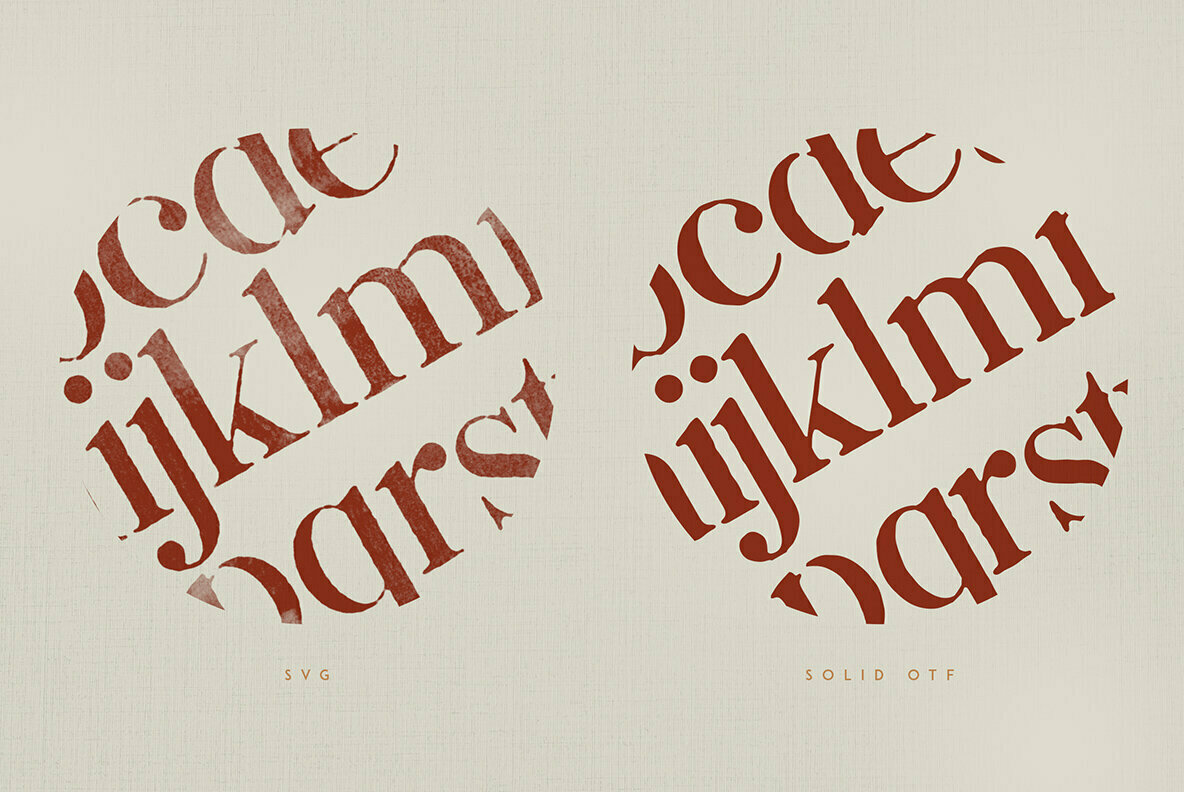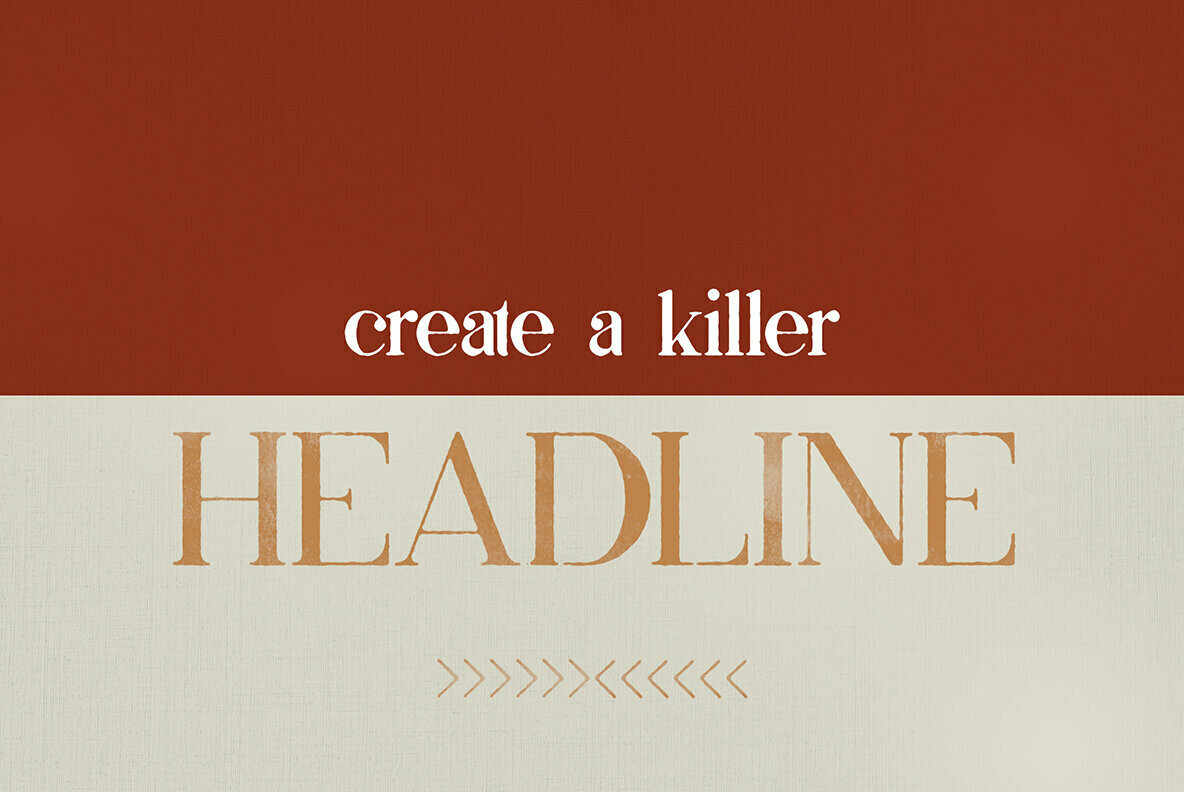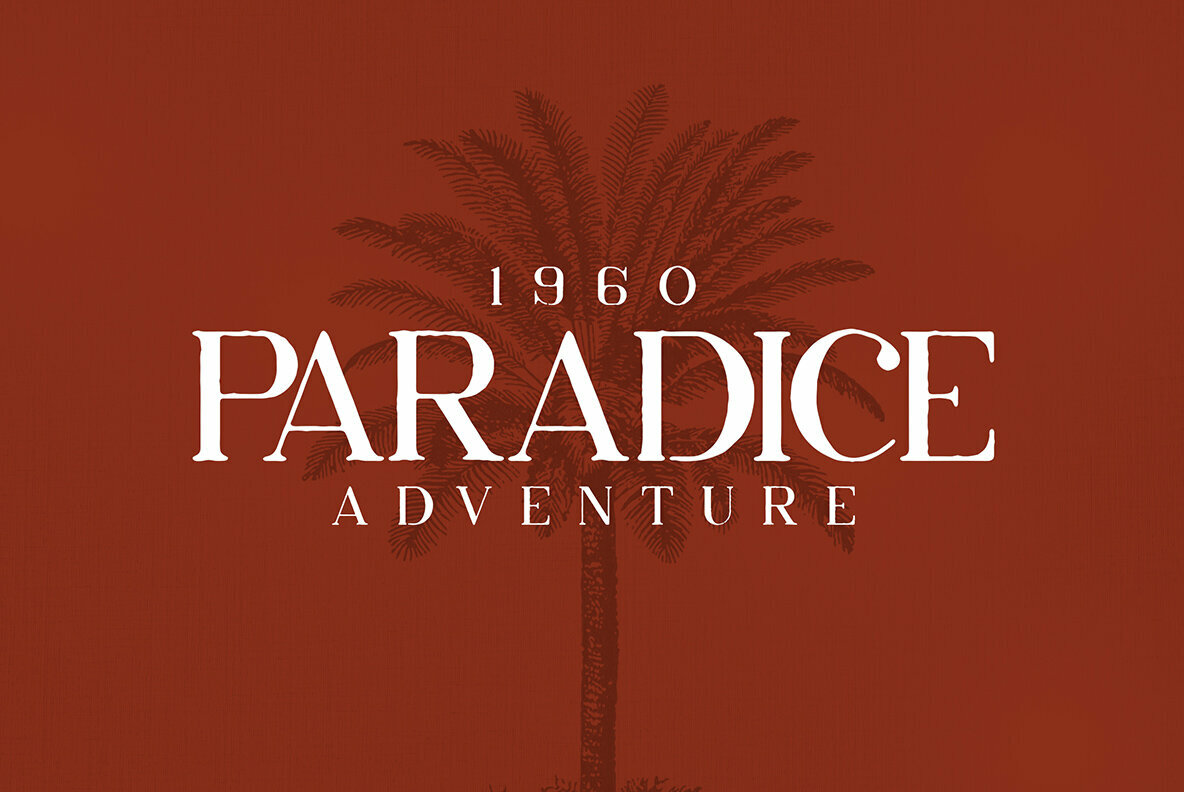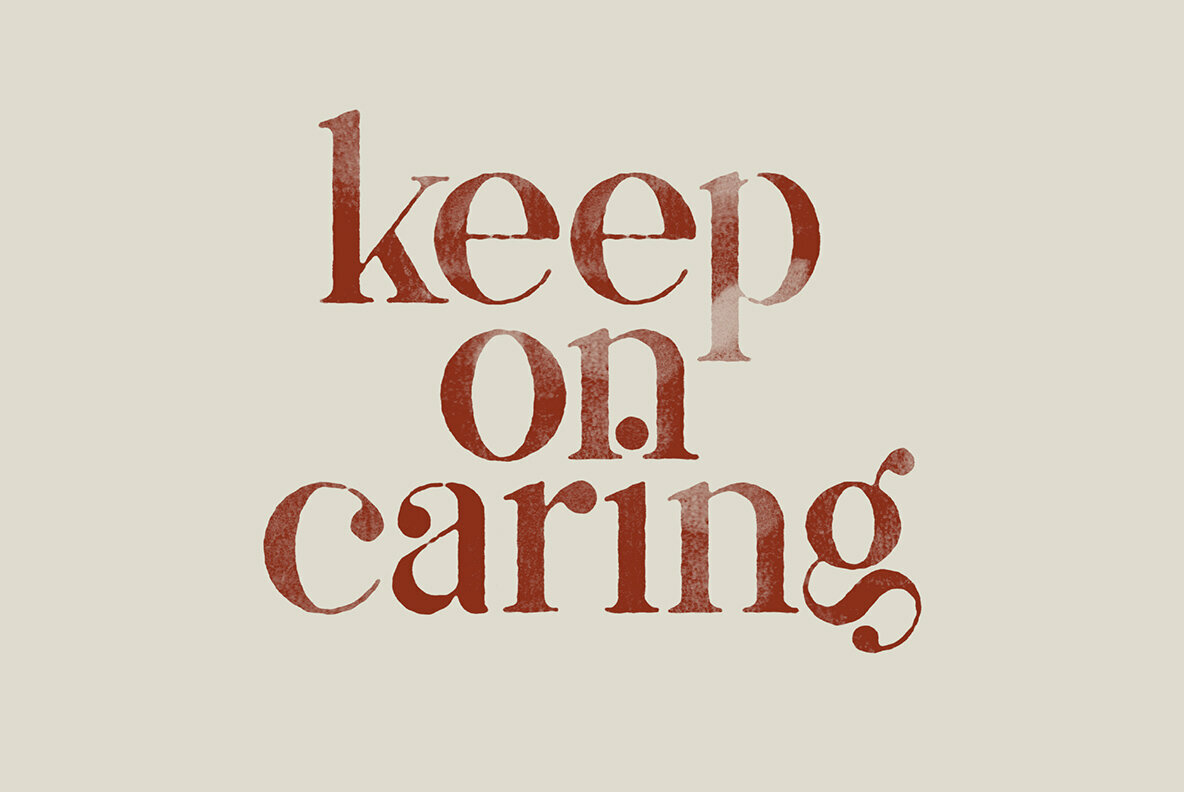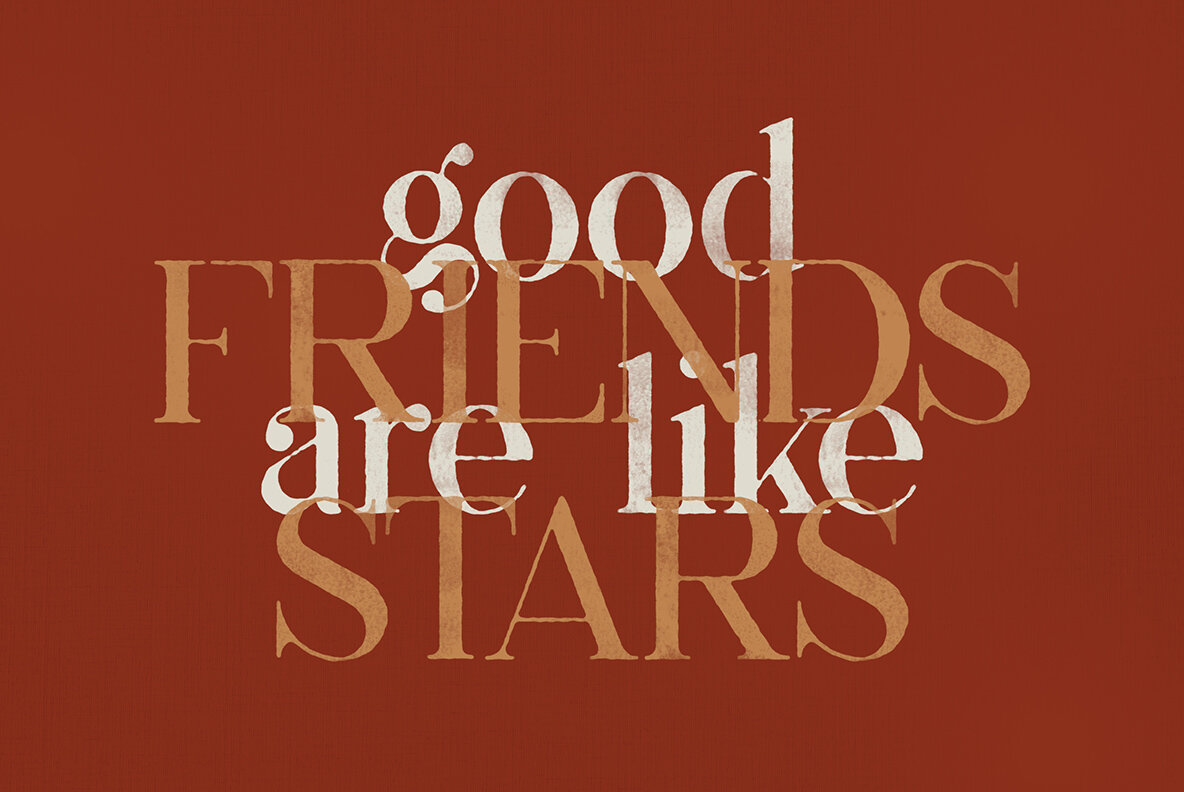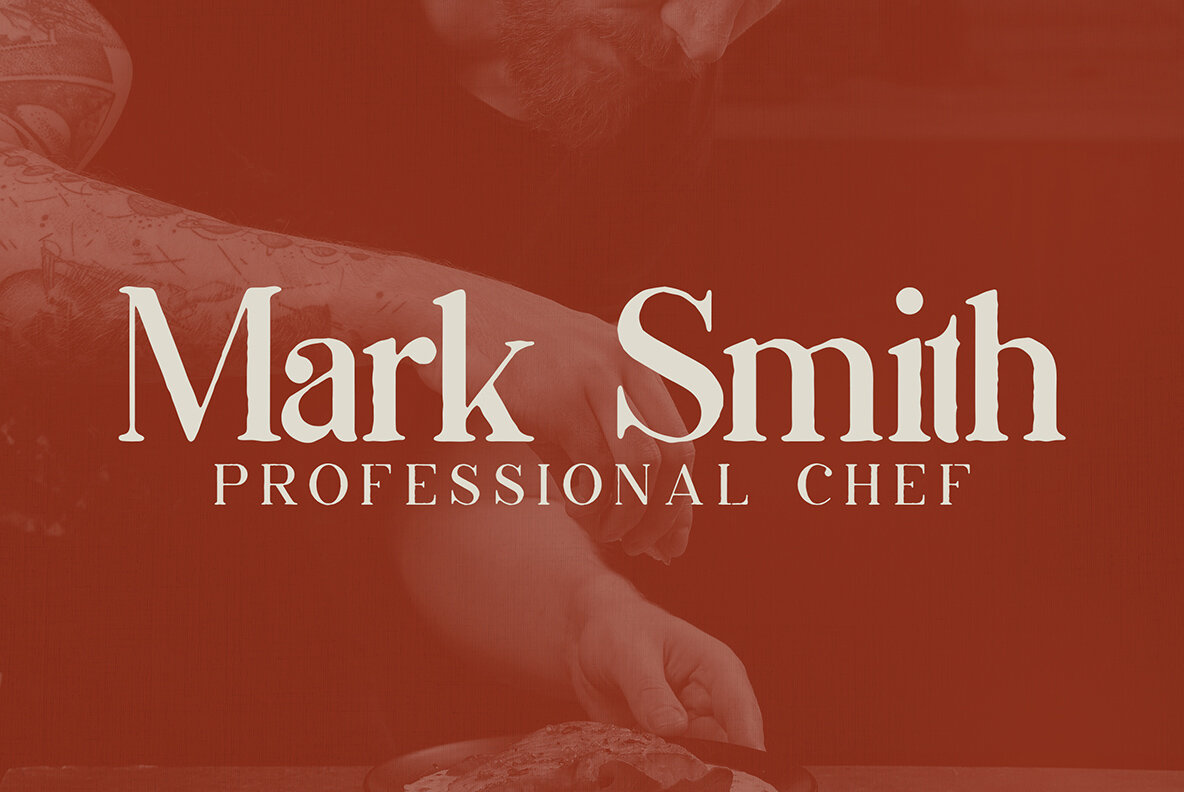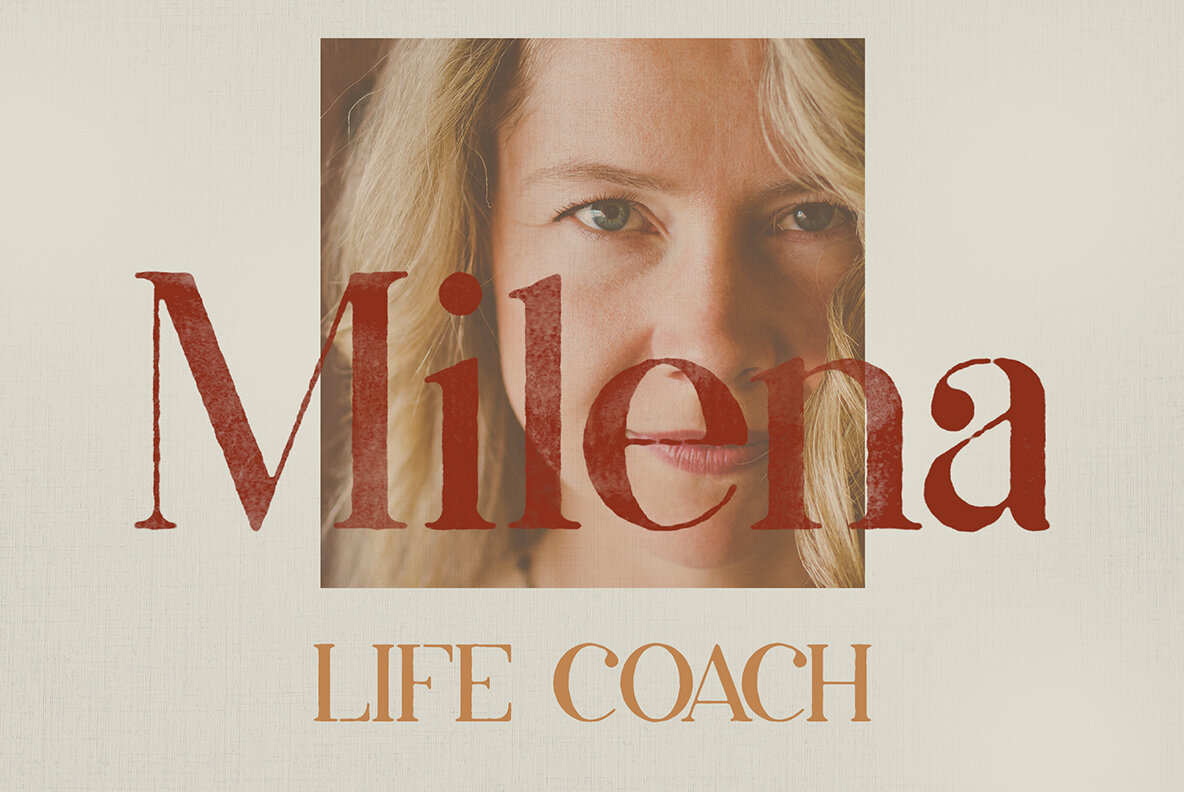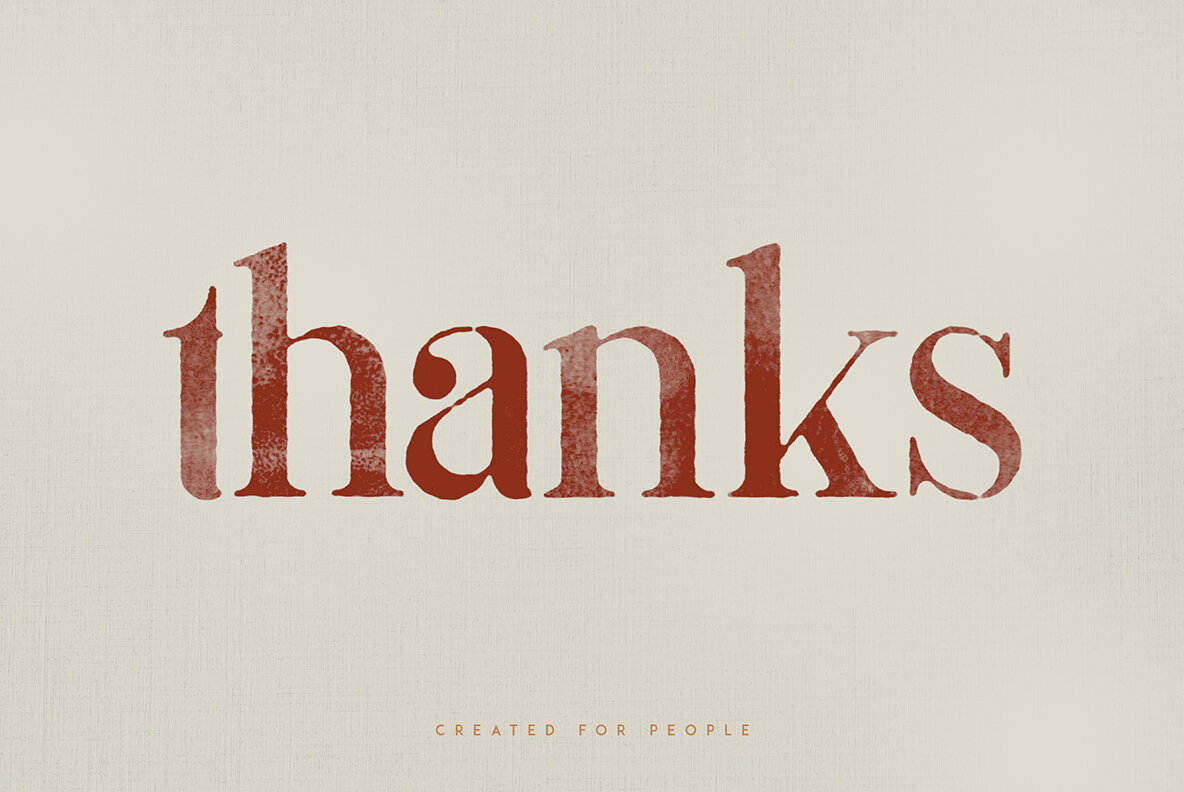
Akrasia SVG Font
Akrasia by VP Creative Shop marries the striking appeal of bitmap SVG with the refined simplicity of solid typeface design. Ideal for diverse applications from branding projects to homeware designs, this typeface elevates product packaging and magazine headers while serving as a stylish overlay for background images.Akrasia Typeface: Bitmap SVG and Solid Elegance